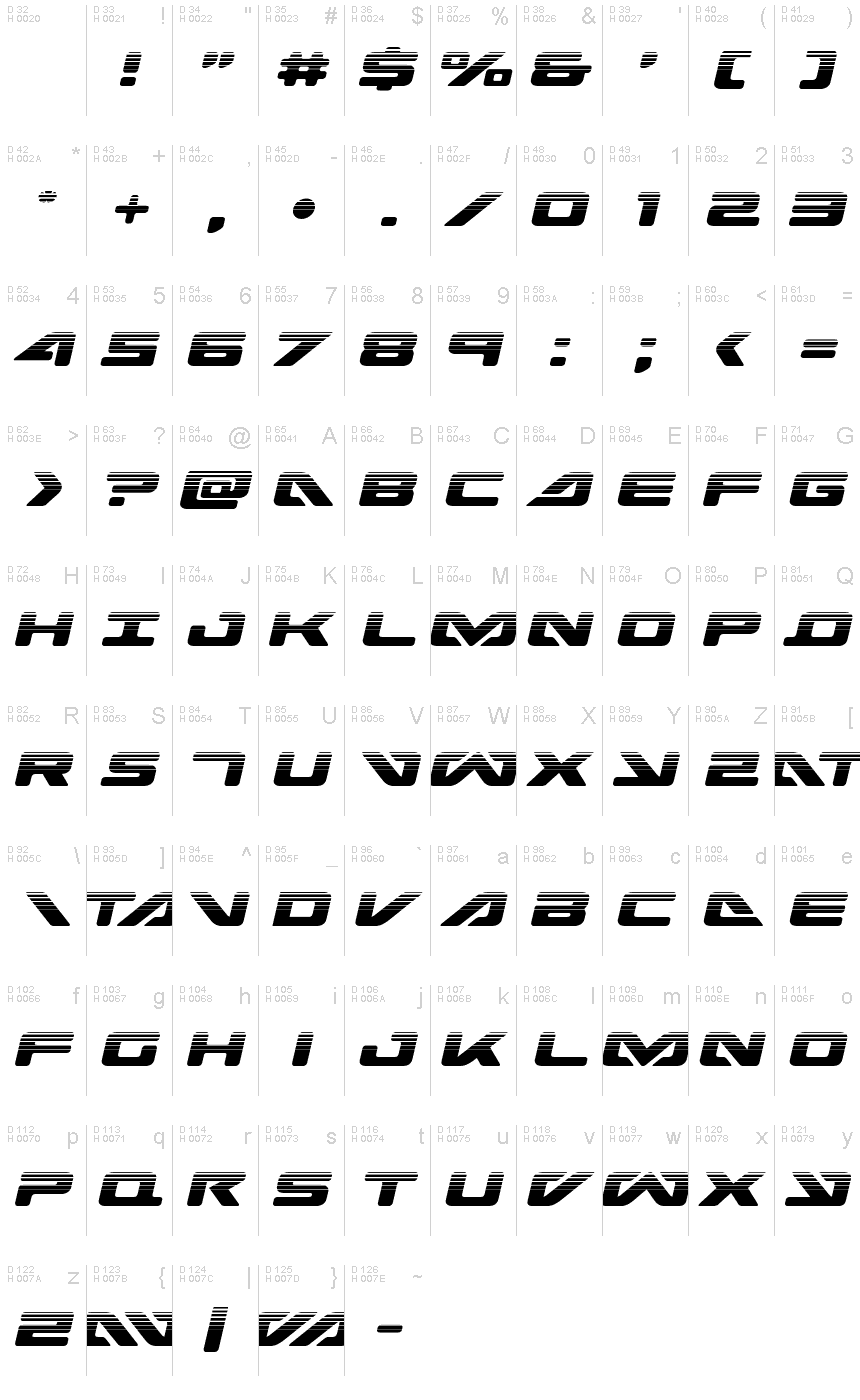
Sea-Dog Halftone Semi-Italic is a captivating display font that exudes a futuristic vibe. Designed by Iconian Fonts, this extra-bold and extra-expanded typeface is perfect for creating attention-grabbing headlines, logos, and posters. The semi-italic style adds a touch of elegance to its edgy design, making it suitable for various projects such as tech branding, gaming graphics, and sci-fi movie titles. With its unique halftone effect reminiscent of vintage comic books, Sea-Dog Halftone Semi-Italic is sure to make any project stand out in the digital landscape.
Sea-Dog Halftone Semi-Italic